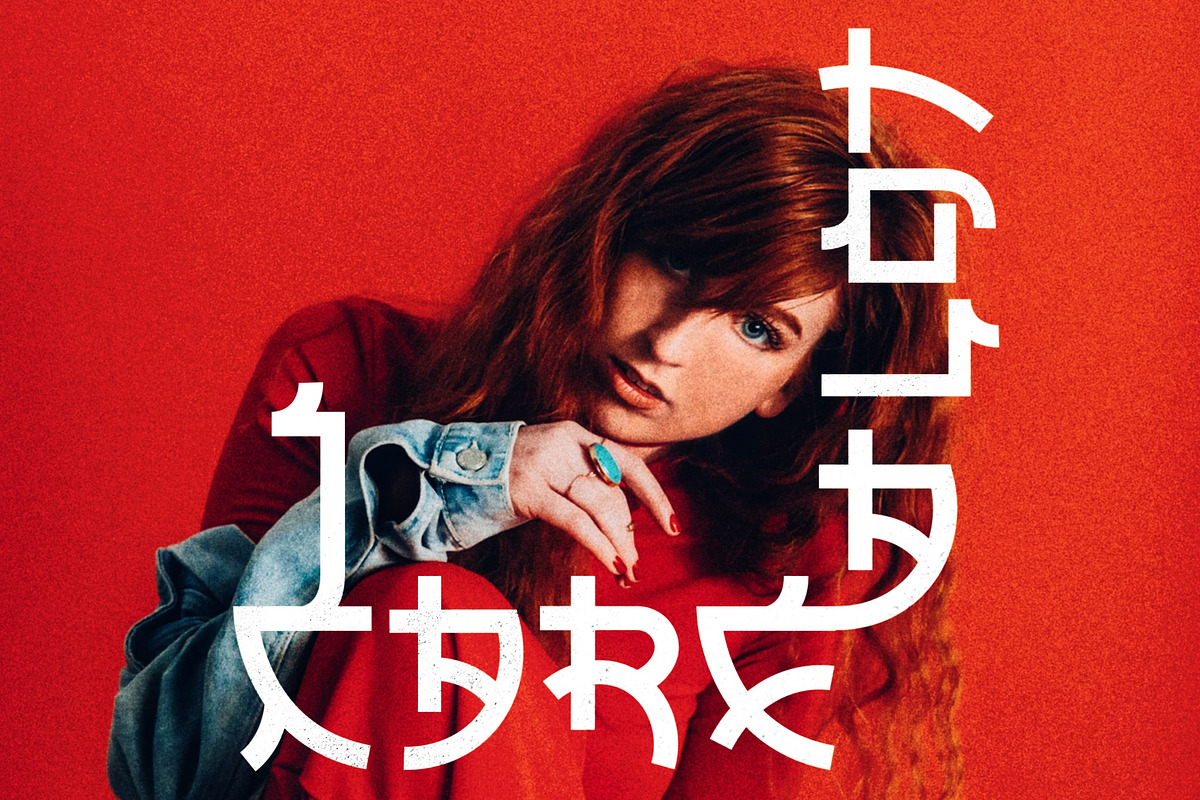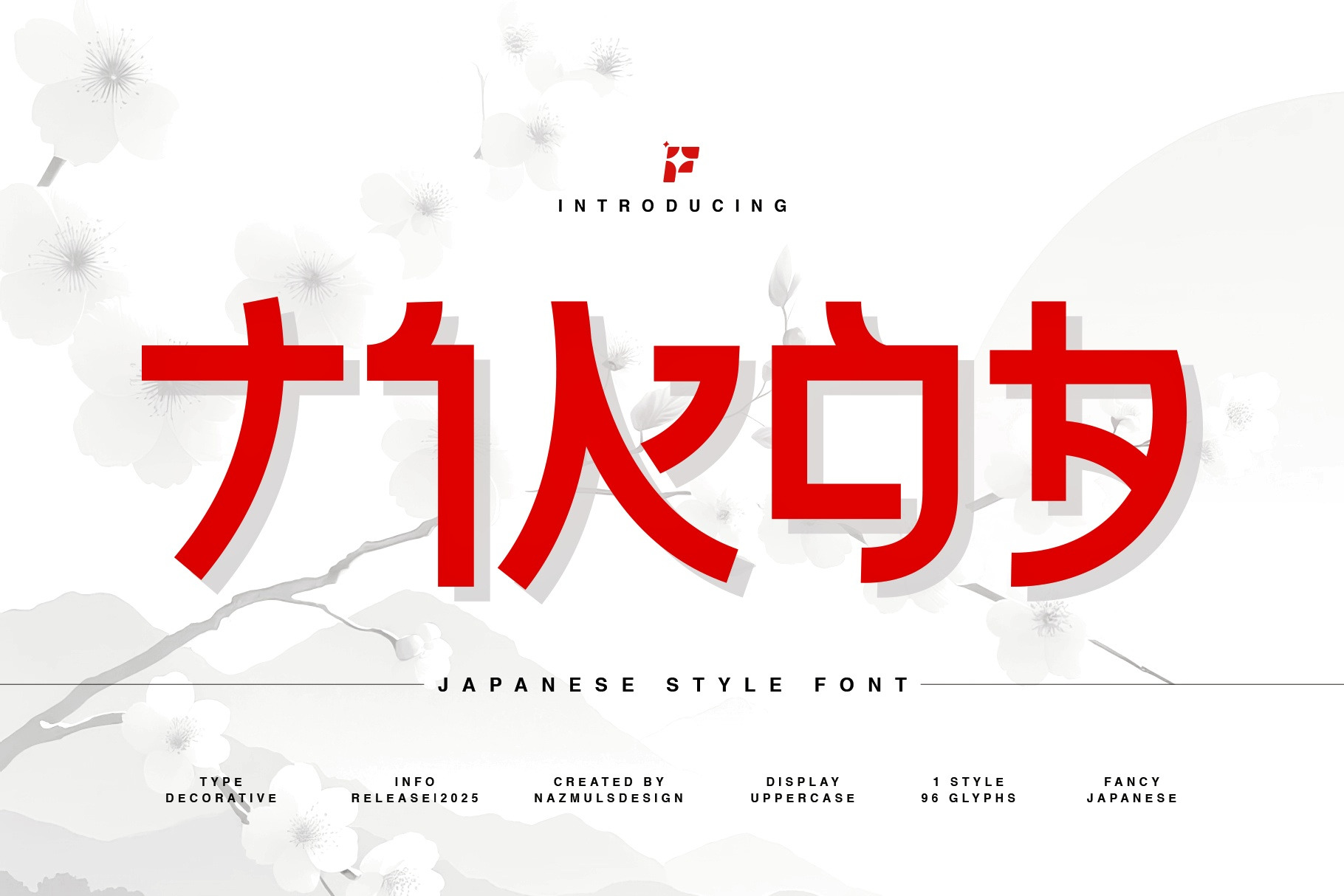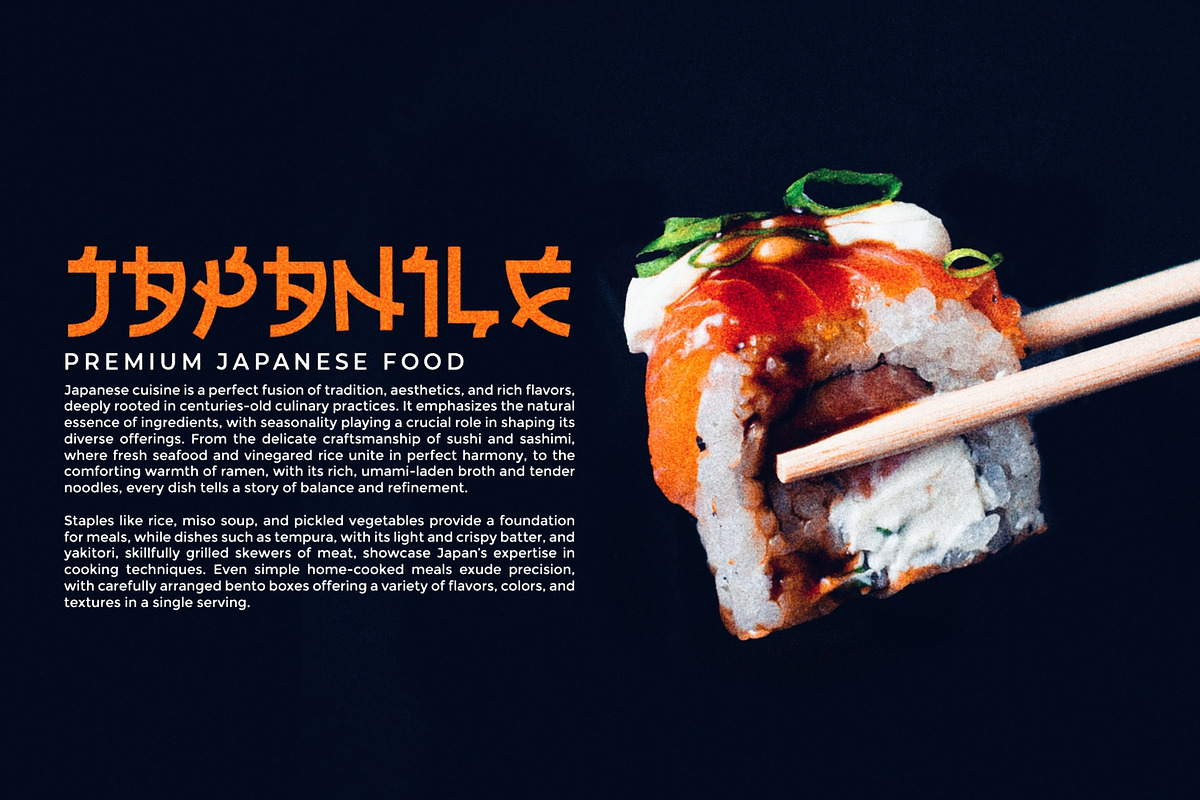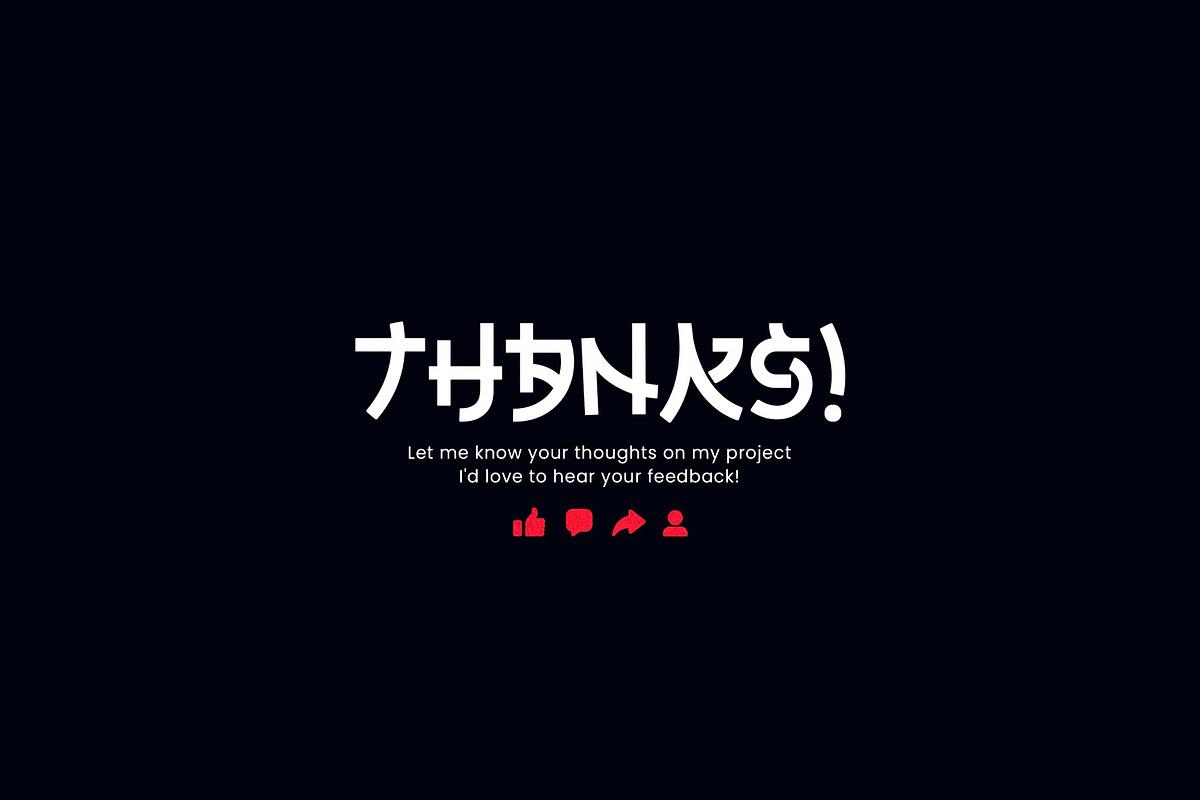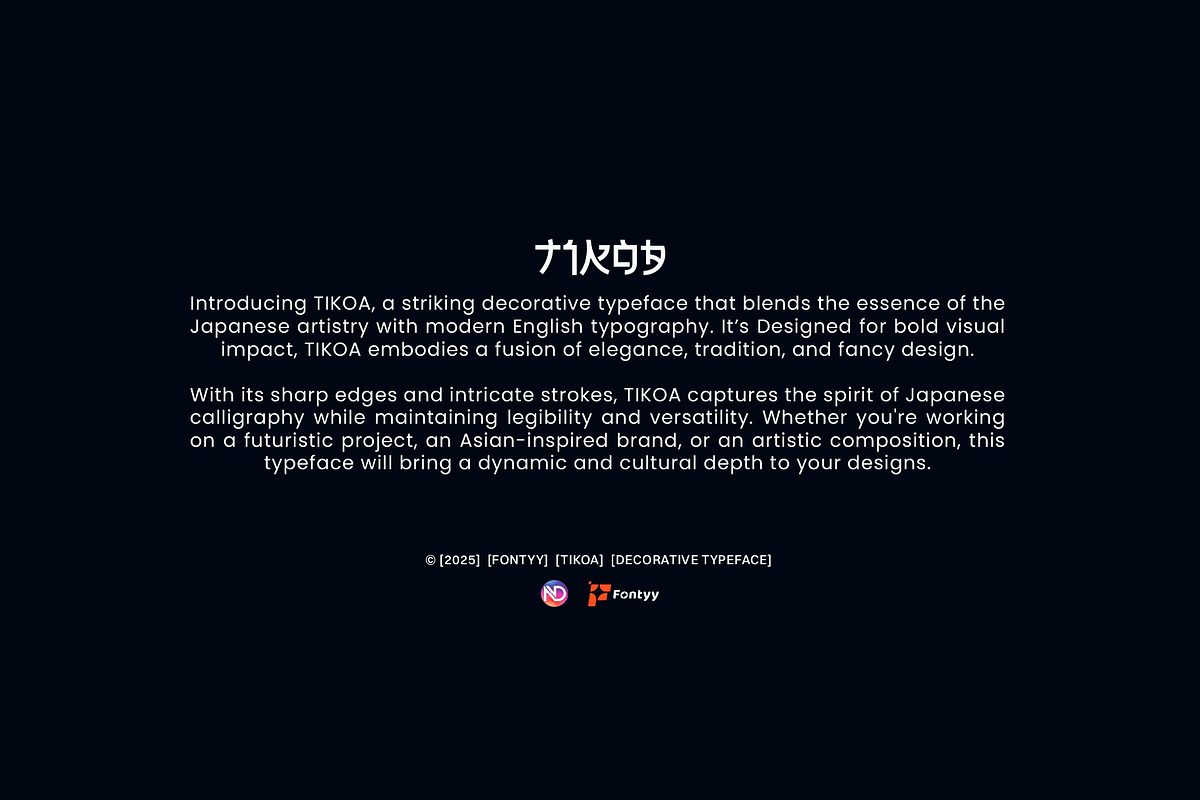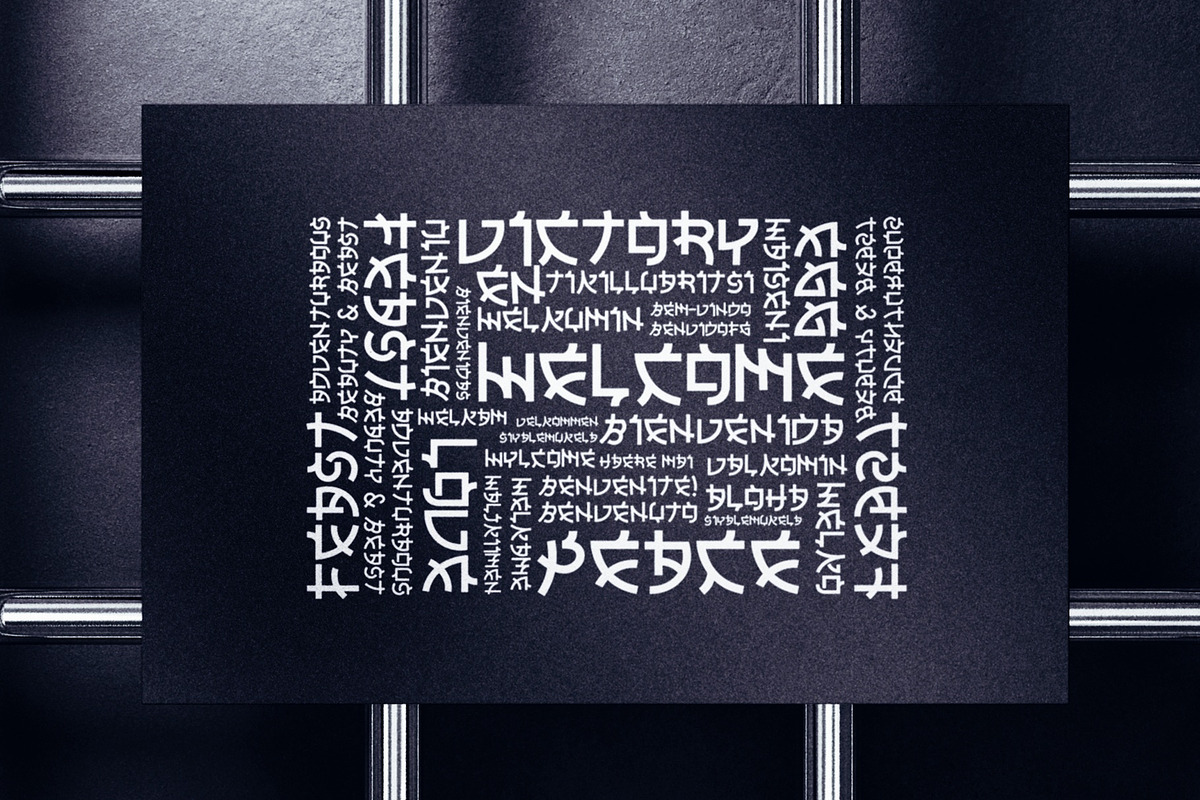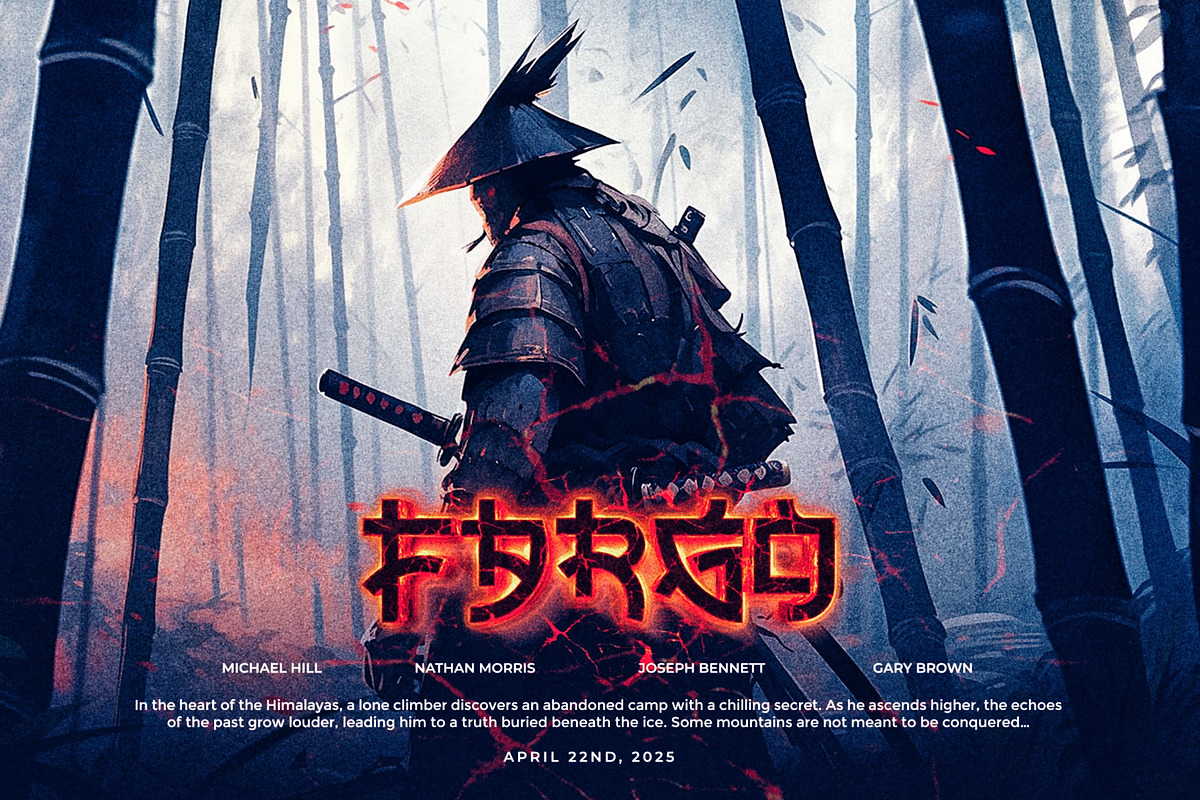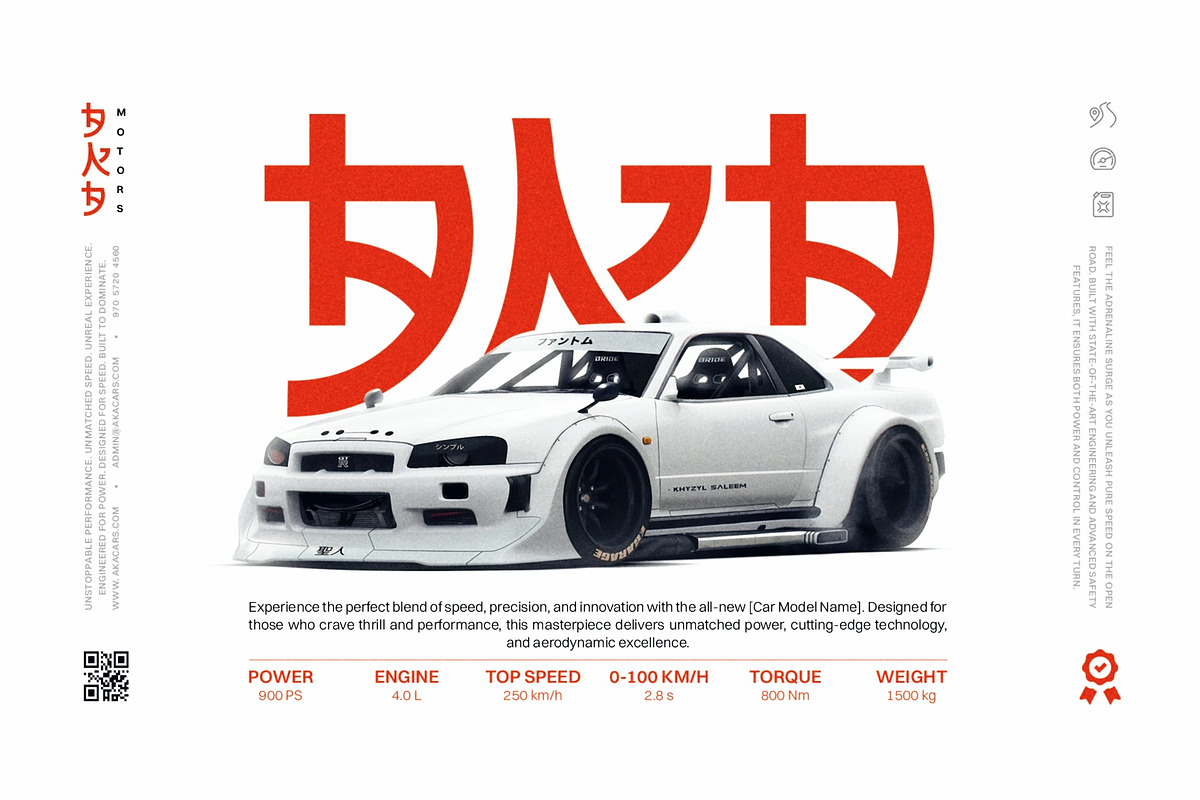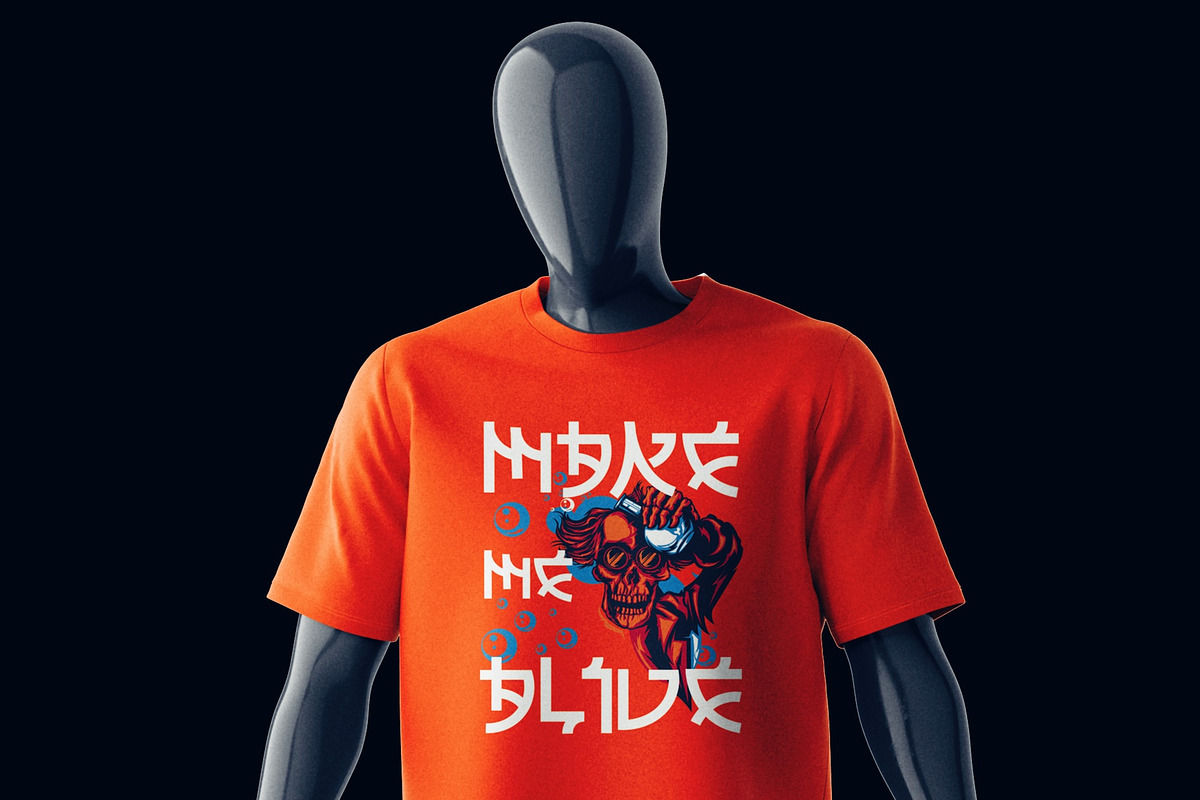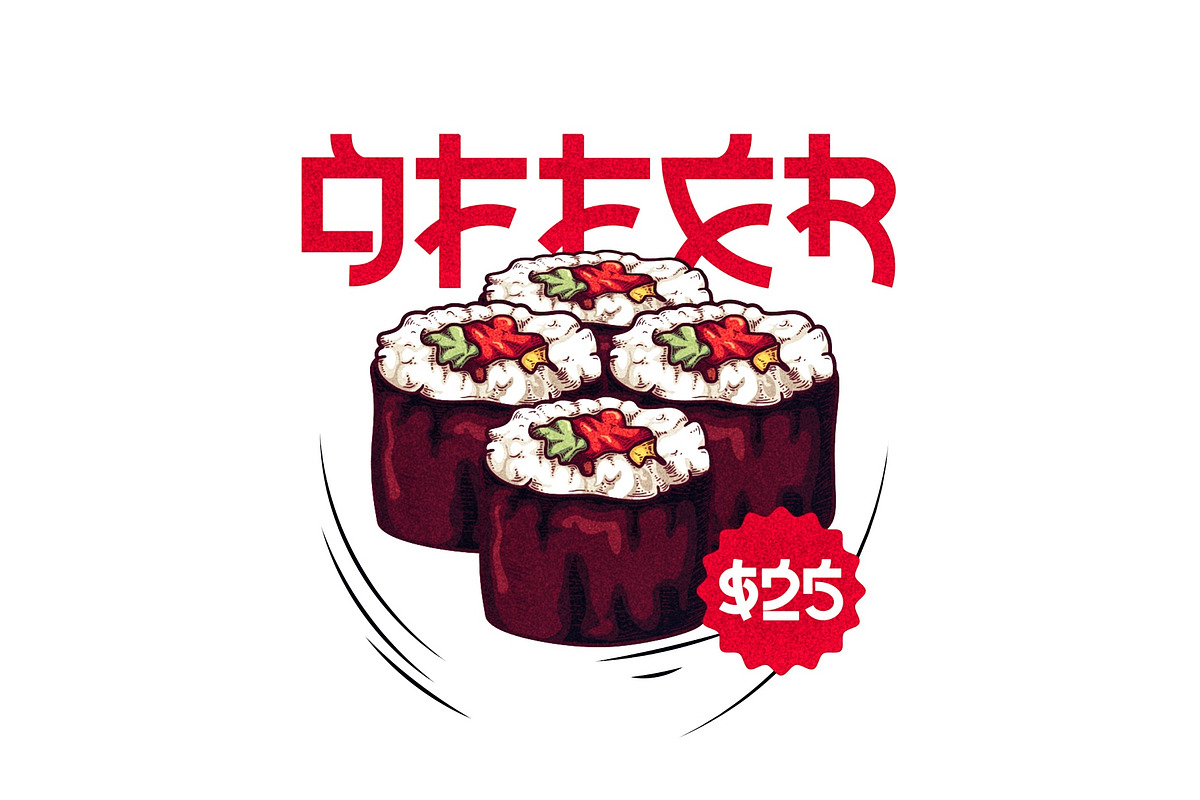
Tikoa - Japanese Typeface
Introducing our new product Tikoa - Modern Font.
Tikoa is a bold, modern display font with playful flair, ideal for attention-grabbing headlines, logos, and diverse design projects. Versatile and readable in both digital and print, Tikoa adds a dynamic touch to your message.